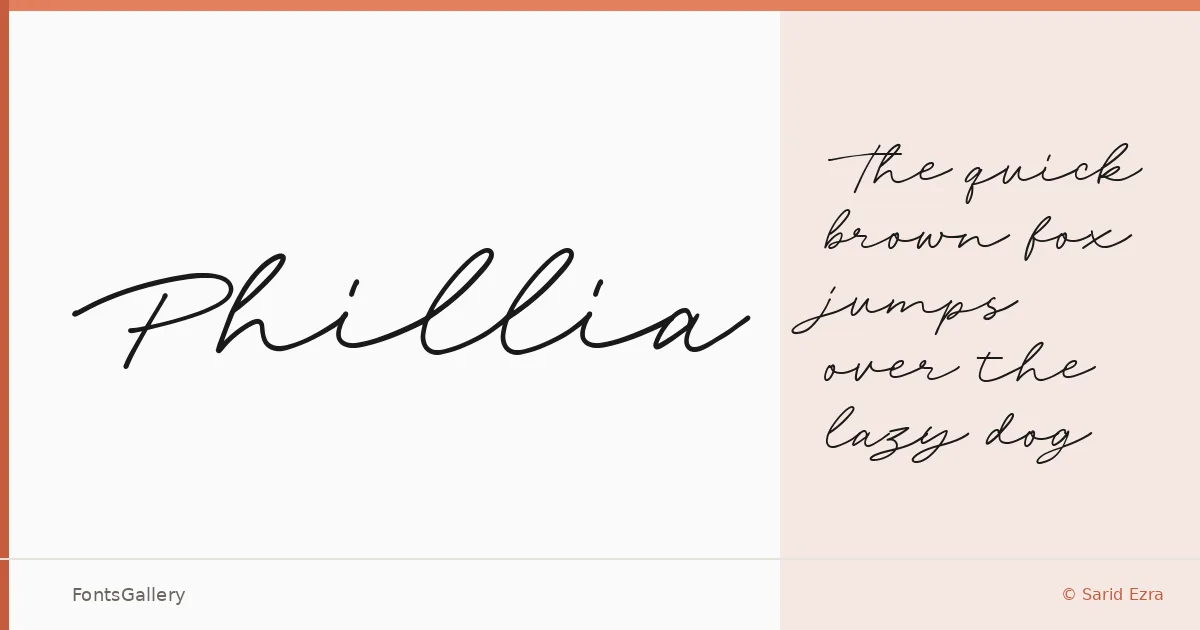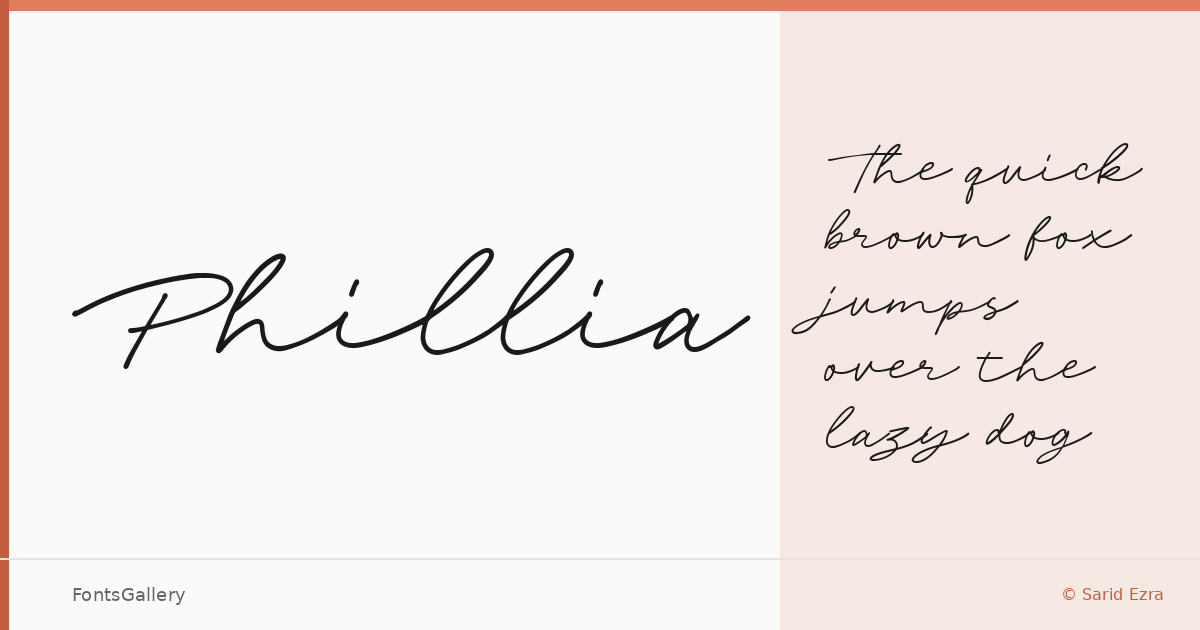
About Phillia Font
There is a particular ease in the way this script moves — loops that breathe, connections that feel drawn rather than constructed. Phillia is the work of designer Sarid Ezra, and it arrives as a single Regular weight in TTF format. The letterforms carry the kind of unhurried confidence you see in hand-lettered calligraphy made for occasions that matter.
Sitting squarely in the script category, the face reads as classic and romantic without leaning into affectation. Its elegance is of the luxury end — the sort of script that suits a monogram as naturally as it suits a full title line. With only the one Regular cut, the design asks to be used with intention: size it generously, give it space, and the forms repay the attention.
Wedding stationery, invitation cards, and greeting cards are the obvious home, but the script also earns its keep in branding and logo work where a romantic, high-end register is needed. For contrast, the listed pairing suggestions — Canela, Helvetica, ABC Arizona, (AH) Manal, and Anglecia Pro — cover a useful range from contemporary serif to clean sans, each offering a steady counterpoint to the script's expressive energy.